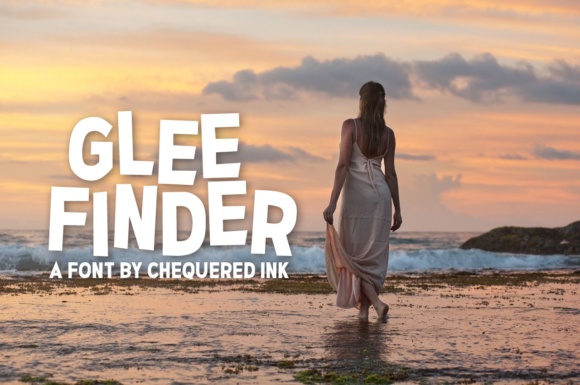
Prepare yourself for a playful adventure with Glee Finder Font, a whimsical cartoon cutout creation by the ingenious Chequered Ink! This extraordinary font family, bursting with sans serif charm, is an artist's dream, a calligrapher's delight, and a designer's secret weapon.
Crafted with meticulous precision, each character in this font is a masterpiece, a hand-drawn delight that dances across your designs with an infectious energy. Dive into a world of eye-catching headlines, vibrant logos, and playfully irresistible social media posts. Unleash your imagination and let the Glee Finder Font lead you on an artistic journey like no other.
Transport your designs to a realm of boundless creativity, where every letter tells a story and every word bursts with personality. The Glee Finder Font is not just a font; it's an invitation to let your creativity soar, to embrace the unexpected, and to craft designs that spark joy and ignite imaginations.
With the Glee Finder Font, the possibilities are as endless as your own imagination. Its playful spirit lends itself effortlessly to children's books, enchanting invitations, and whimsical branding that will make your designs stand out from the crowd. Let your imagination run wild and create designs that will bring smiles to faces and leave a lasting impression.